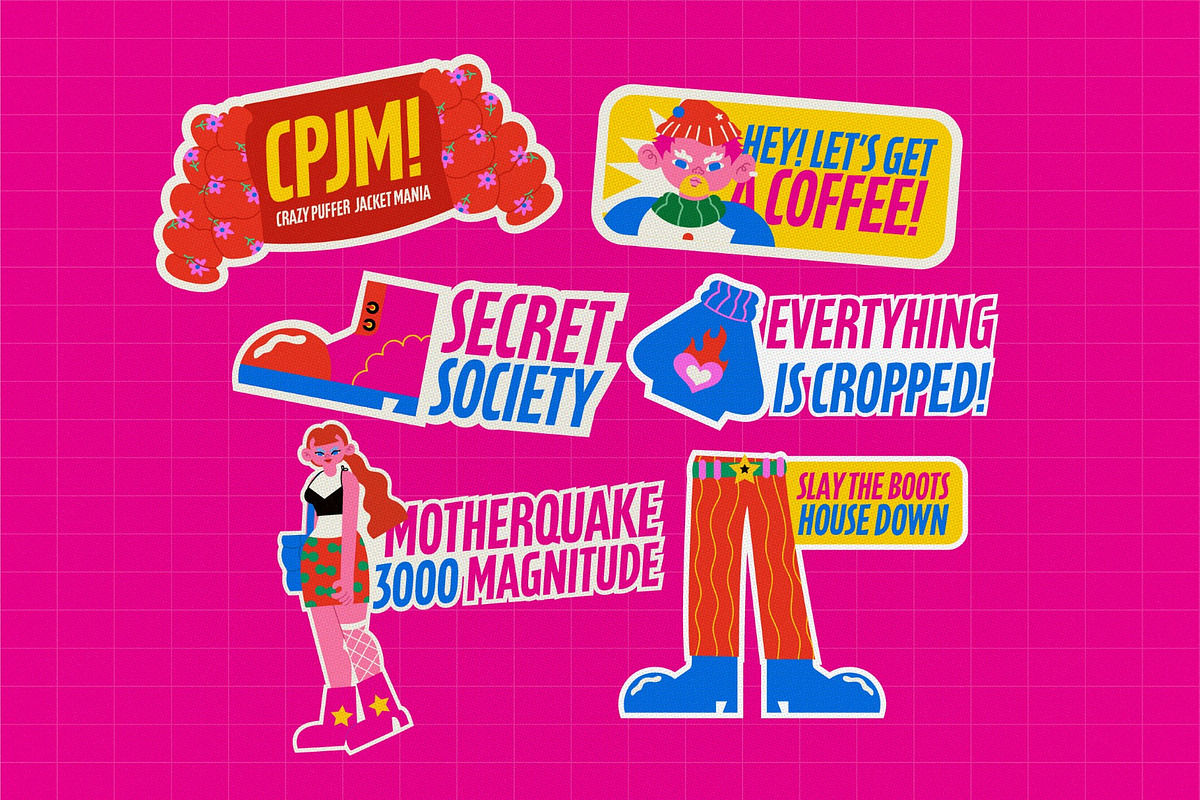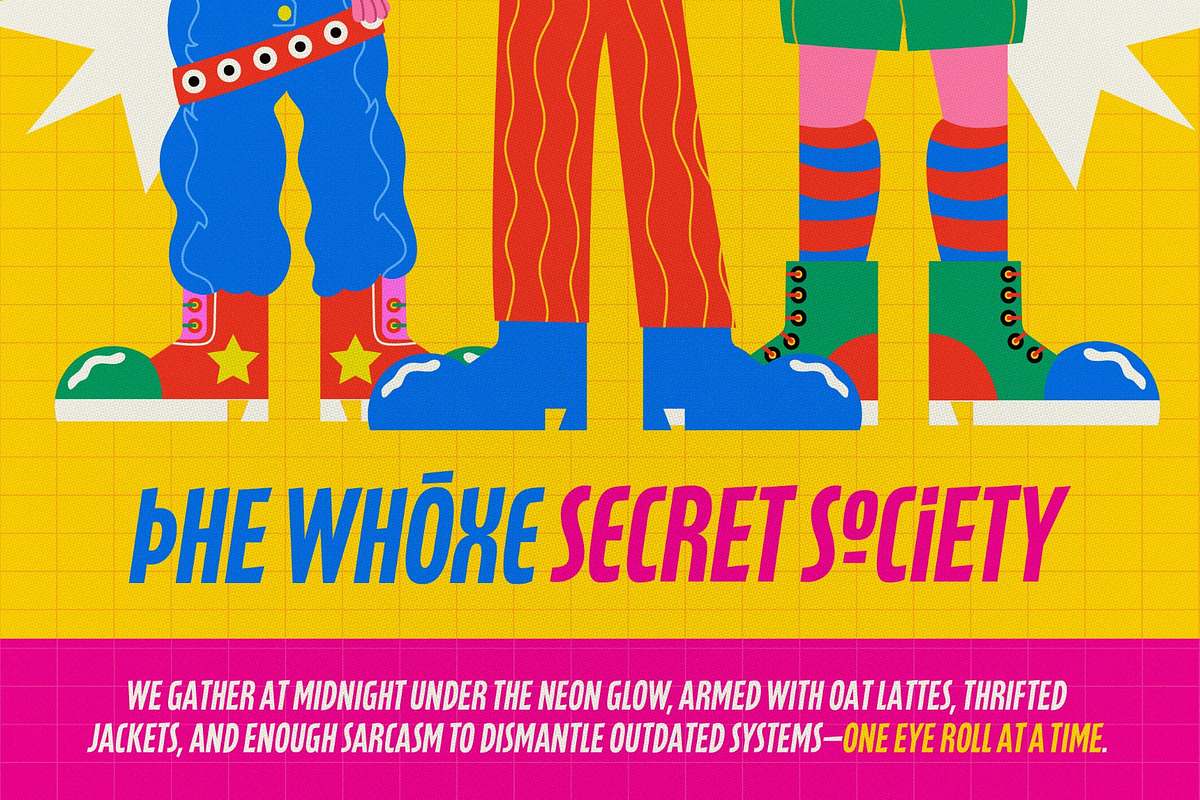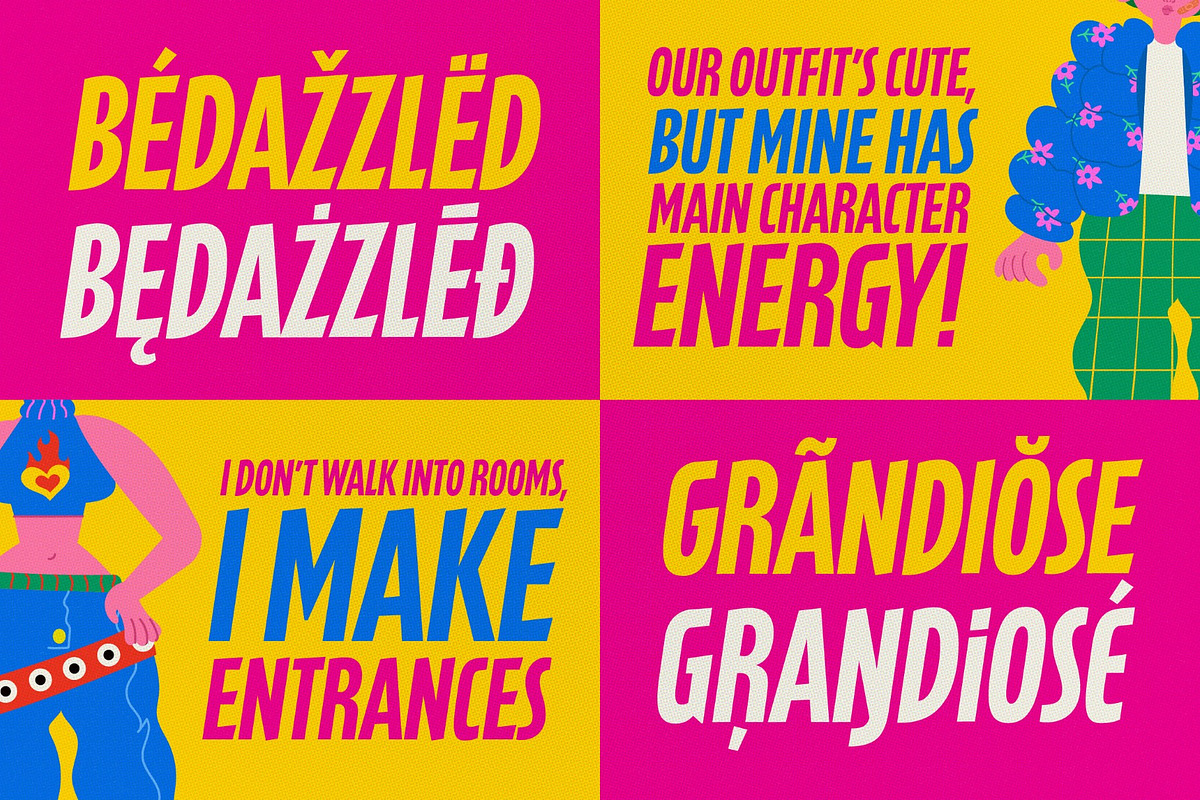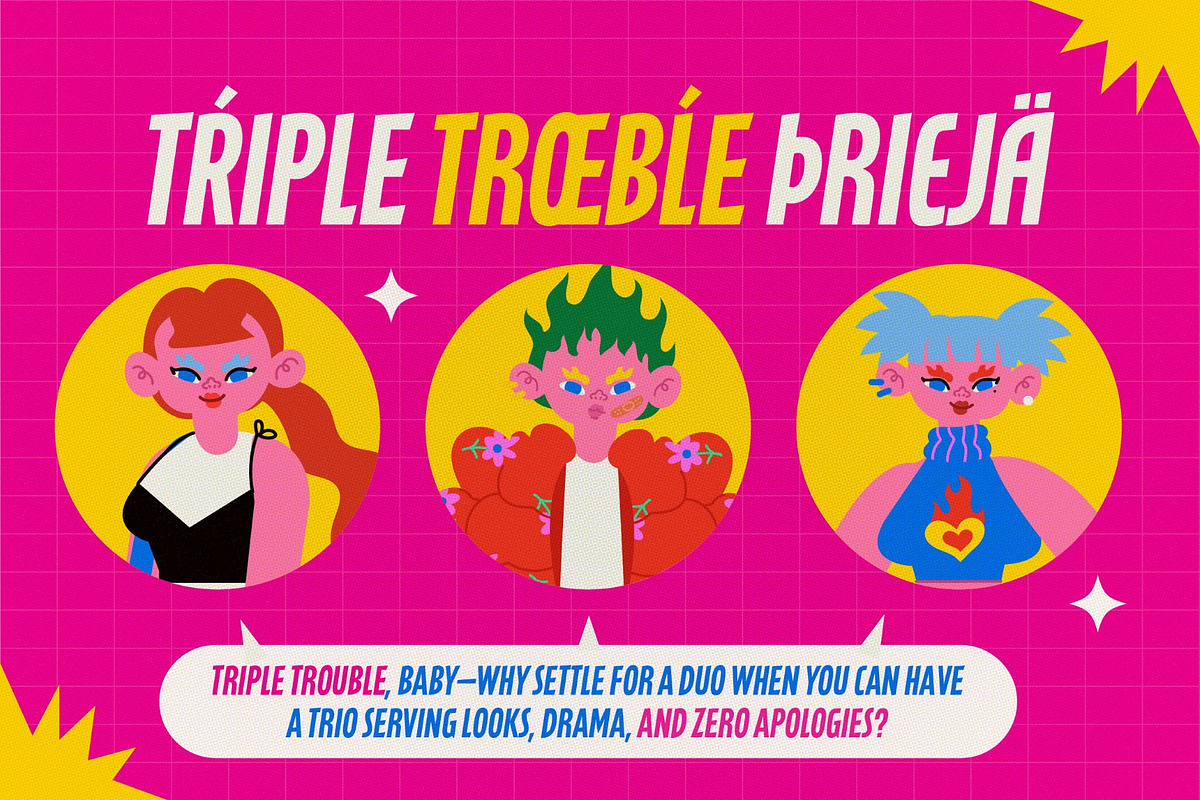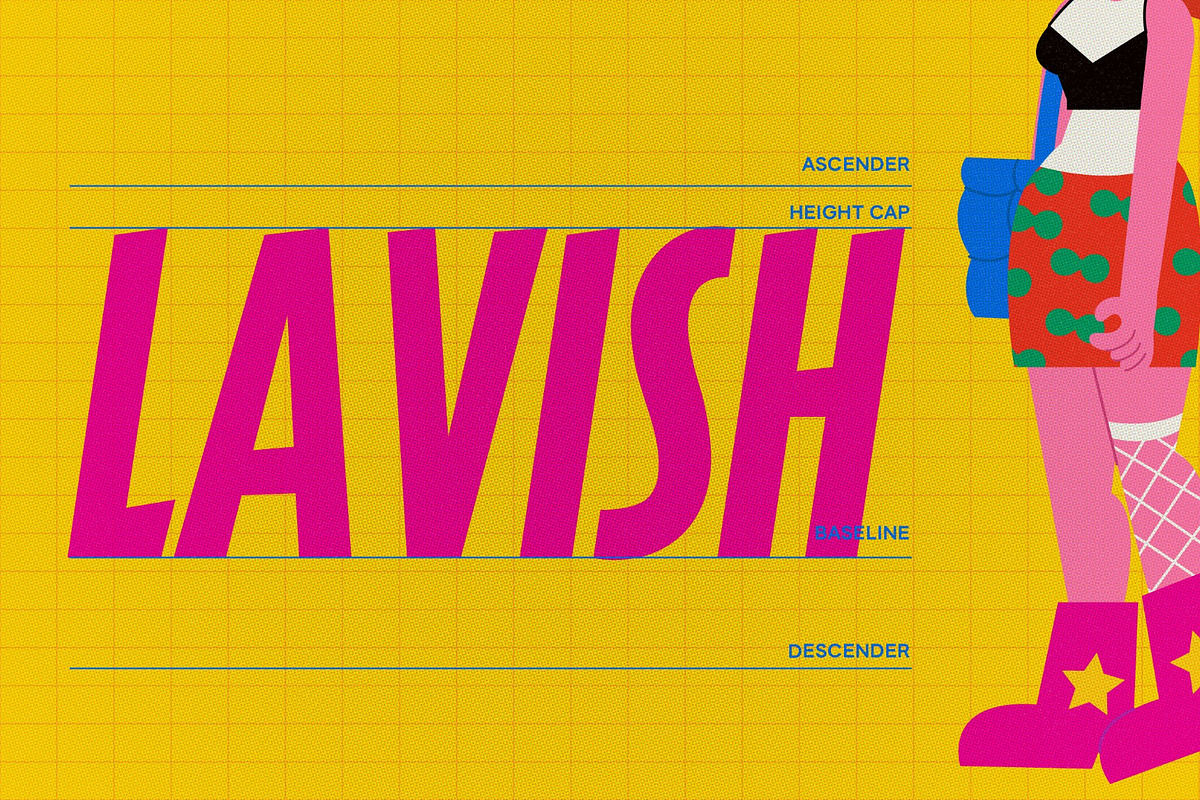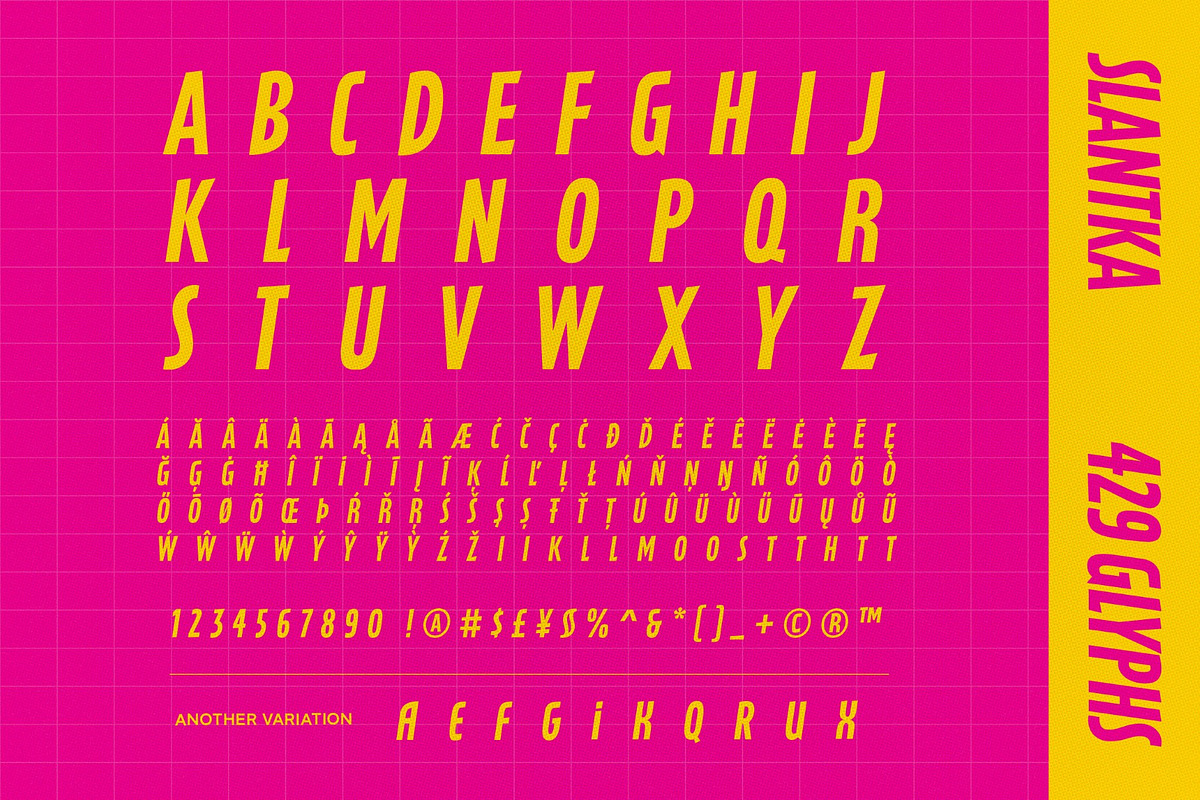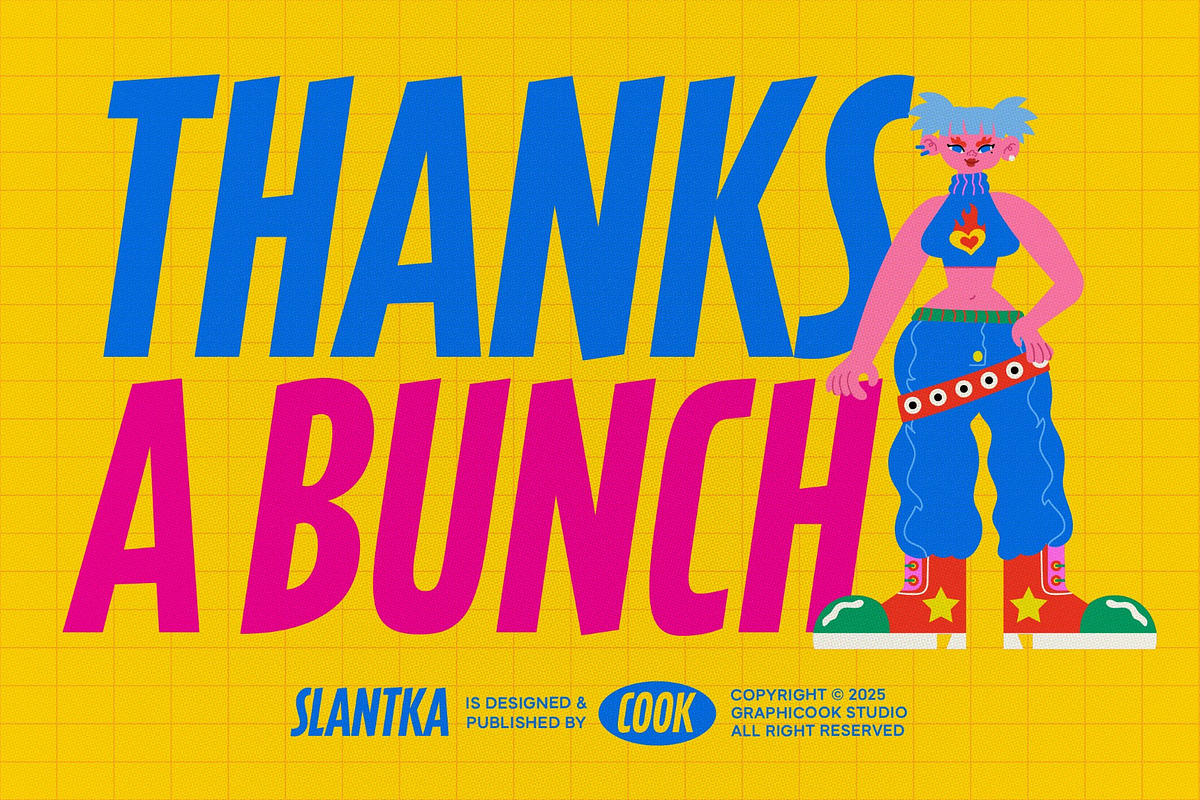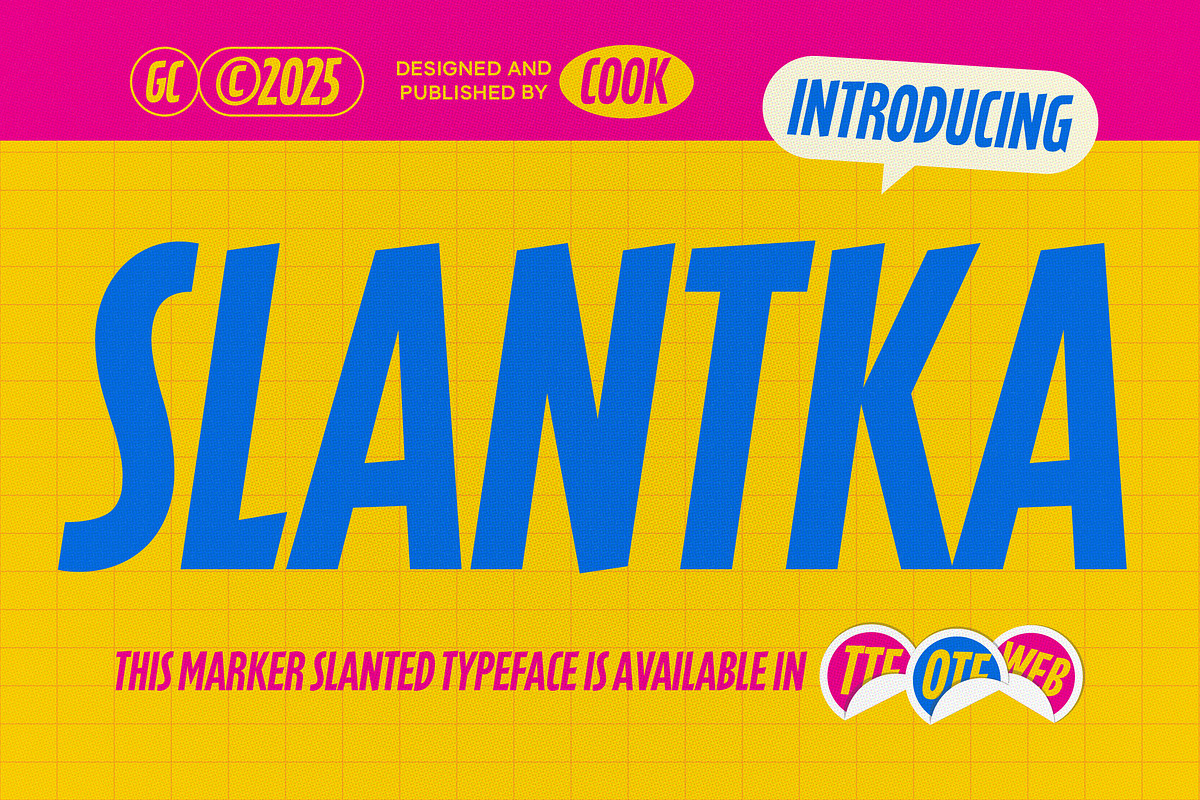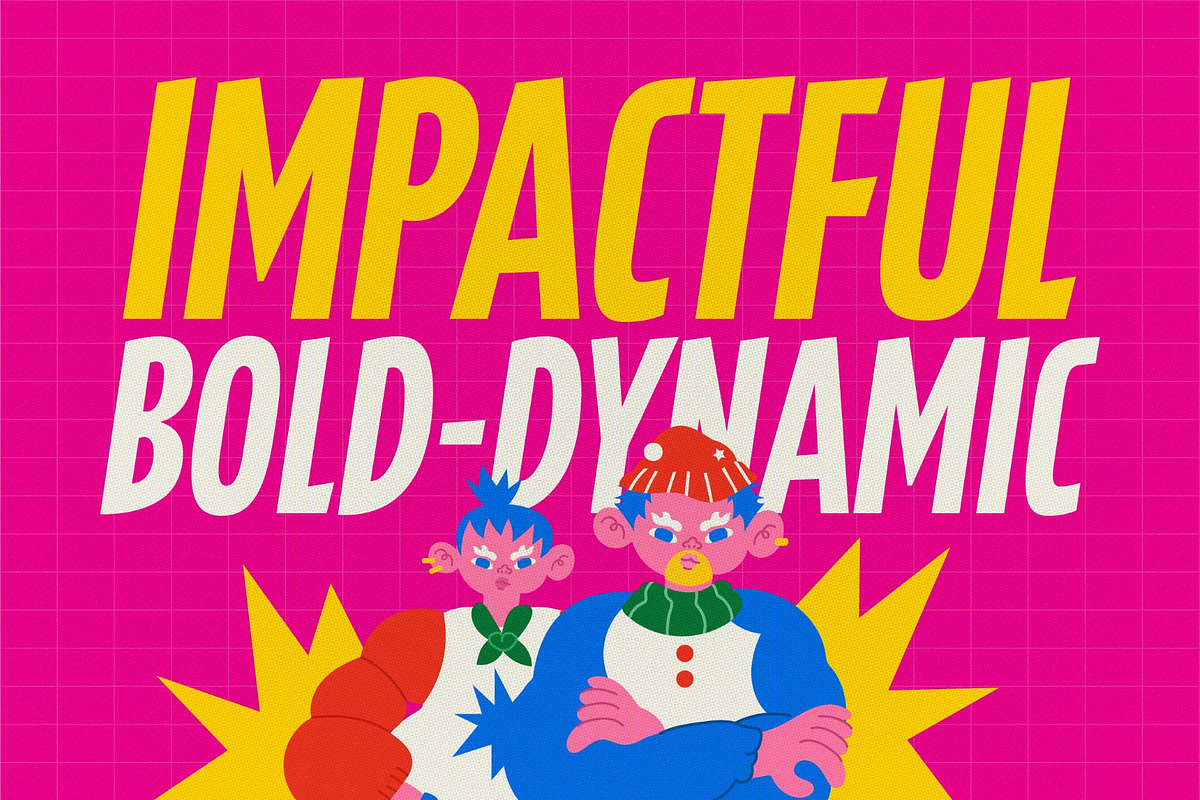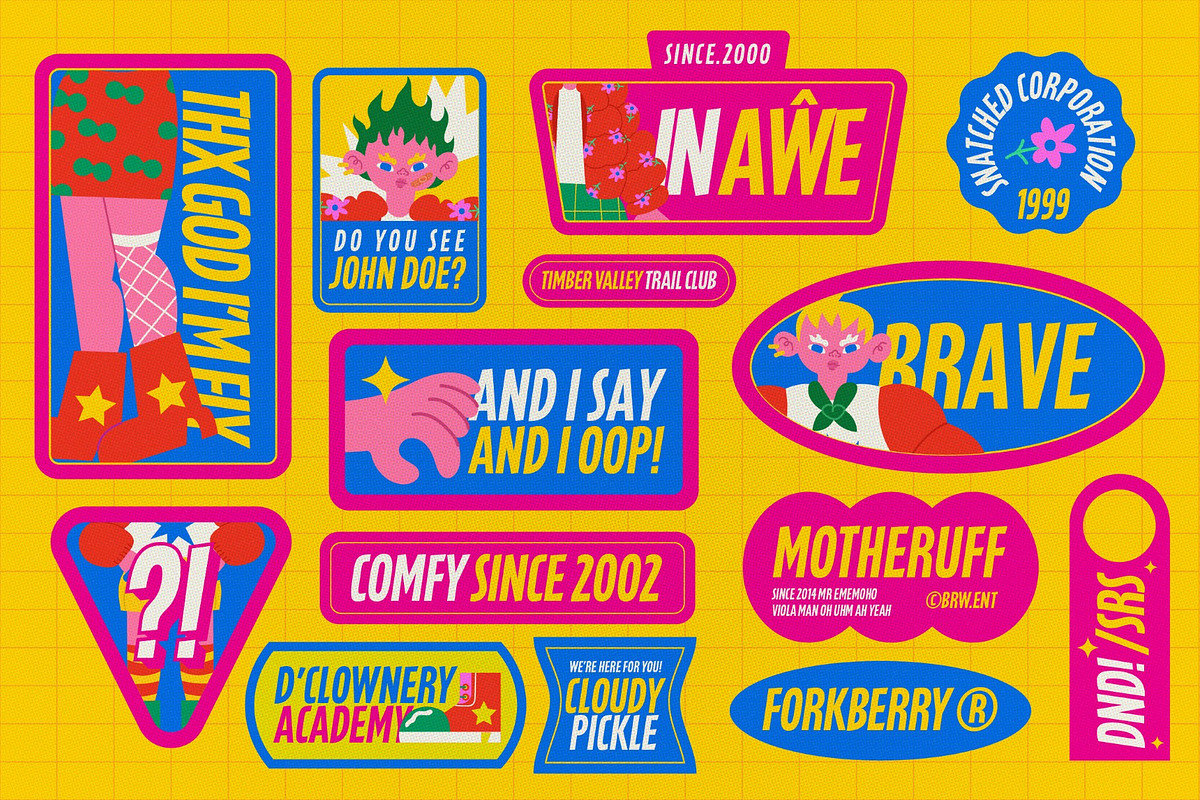
Slantka
Slantka is a bold, slanted marker font with a powerful and playful personality. Its striking letterforms bring energy and confidence, making it perfect for posters, branding, packaging, and other dynamic design projects.
It is perfect for headlines, logotypes, magazines, packaging, quotes, movies, games, cover albums, book covers, and flyers, it's a perfect solution for creating eye-catching designs that stand out in any context.